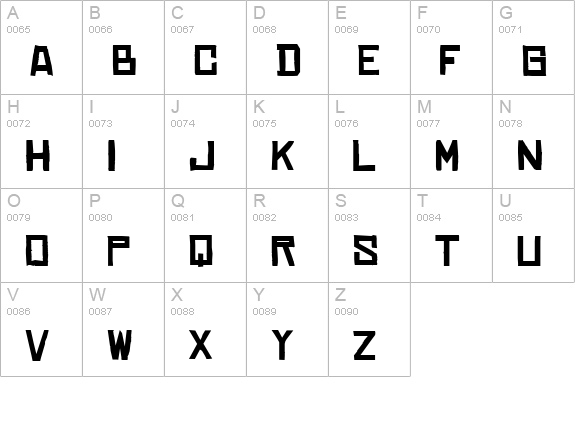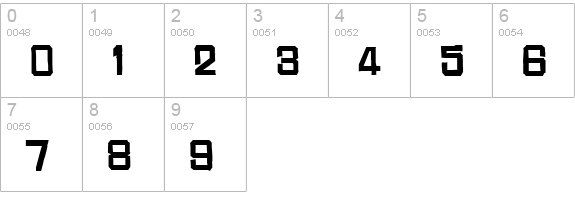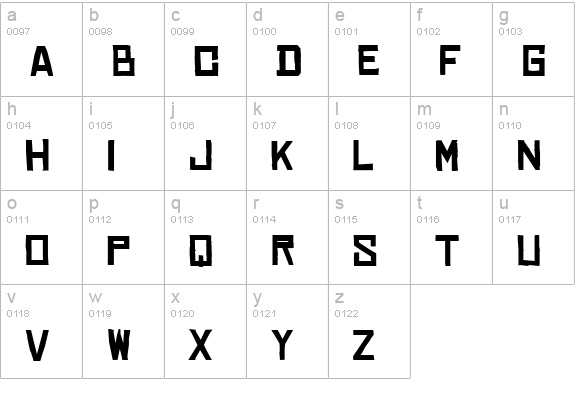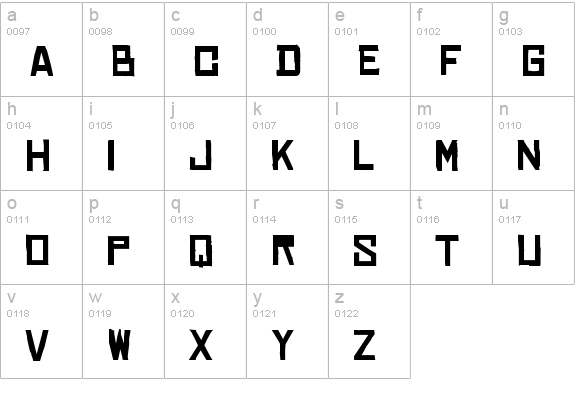
Chinese Rocks Xp Bold is a strong, high-contrast variant in the Chinese typeface family \xE2\x80\x94 well suited to headlines, attention-grabbing titles, and strong calls-to-action.
Chinese Rocks Xp Bold font is a striking display typeface that exudes power and modernity. With its bold and distinct design, this font is perfect for making a bold statement in your designs. The sharp edges and unique character shapes give Chinese Rocks Xp Bold font a contemporary feel that will captivate your audience. And the best part? Chinese Rocks Xp Bold font is available for free download at FontsMarket.com. Whether you're designing a poster, logo, or website, this versatile font will make your text stand out and leave a lasting impression. Don't miss out on the opportunity to enhance your projects with the bold and dynamic Chinese Rocks Xp Bold font. Download it now and let your creativity shine!